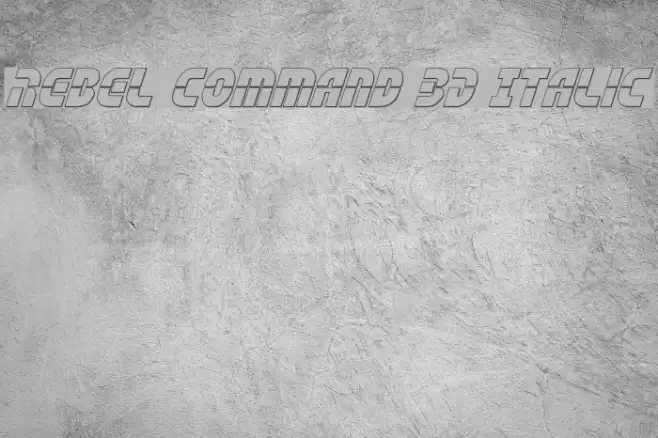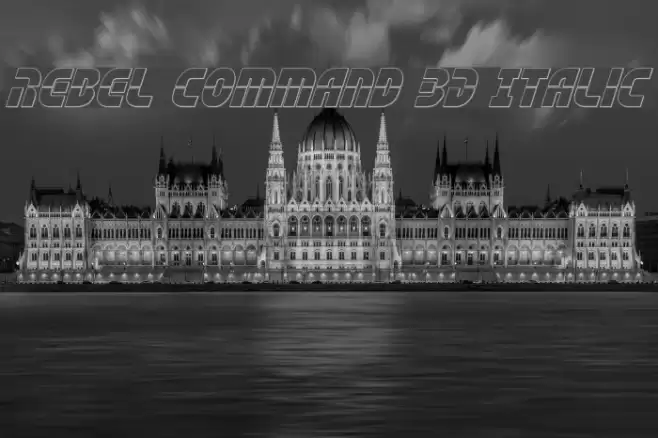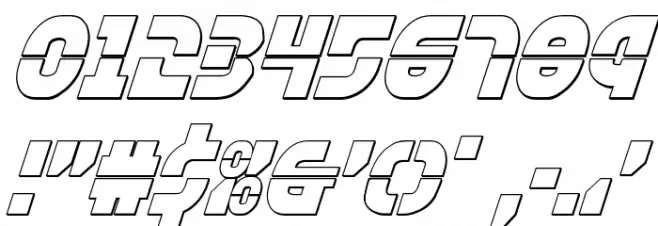
Rebel Command 3D Italic Font
Rebel Command 3D Italic Description
This font features a bold, three-dimensional design with a futuristic and dynamic appearance. The characters are italicized, giving them a sense of motion and energy. Each letter is outlined, creating a hollow effect that enhances the 3D illusion. The font has a geometric structure with sharp angles and clean lines, making it highly legible while maintaining a unique style. The uppercase and lowercase letters are consistent in style, and the numerals and special characters follow the same design principles, ensuring uniformity across all text. This font is ideal for projects that require a modern and edgy look.
A bold, 3D italic font with a futuristic and dynamic style from Uncategorized fonts.
- Proposed Projects: Ideal for sci-fi themed posters, video game titles, tech branding, and futuristic event flyers.